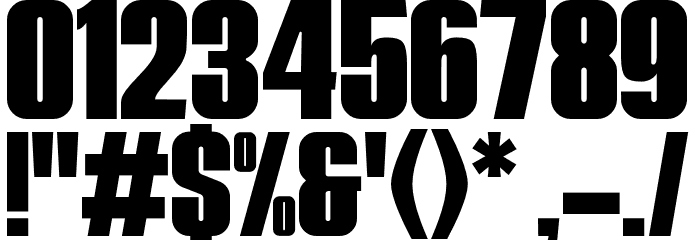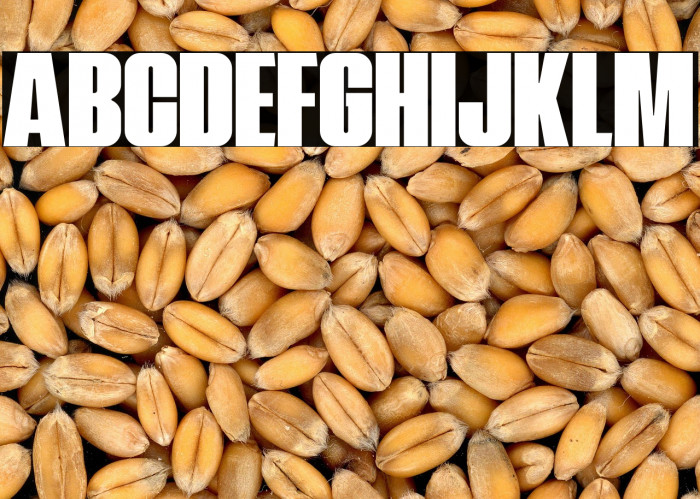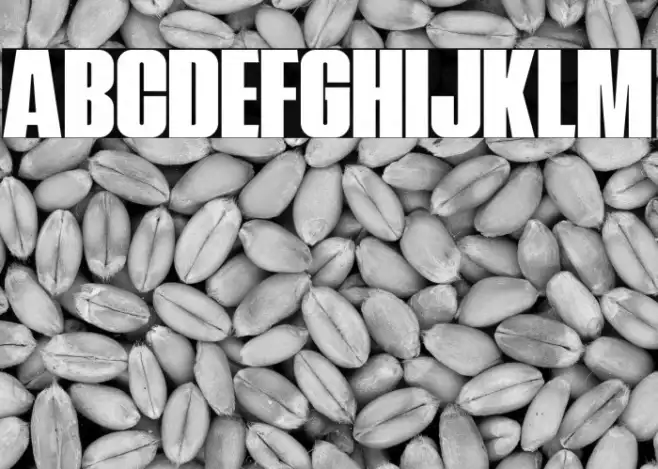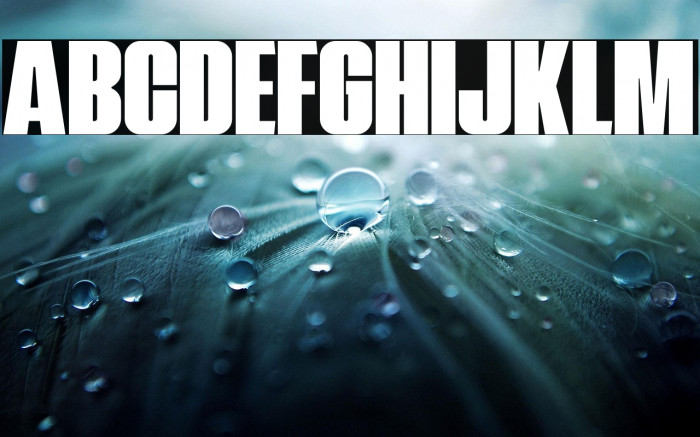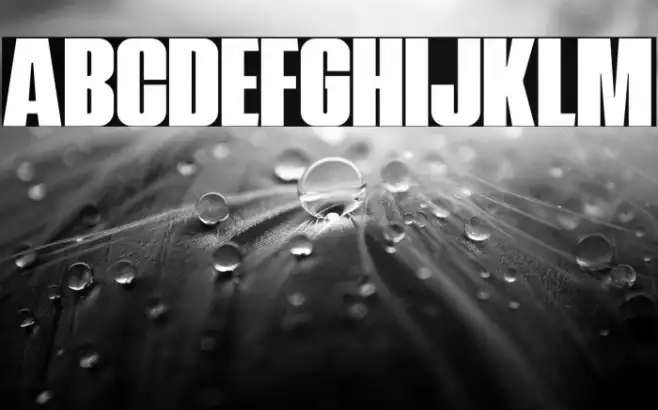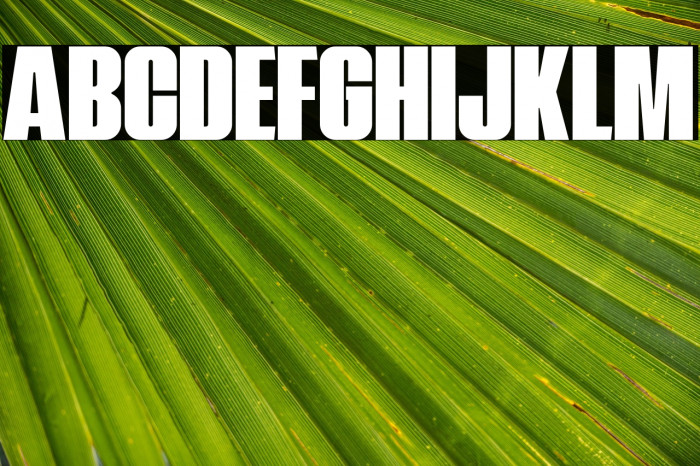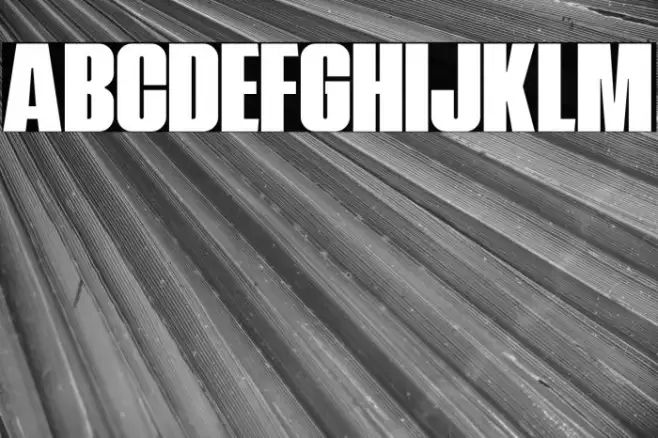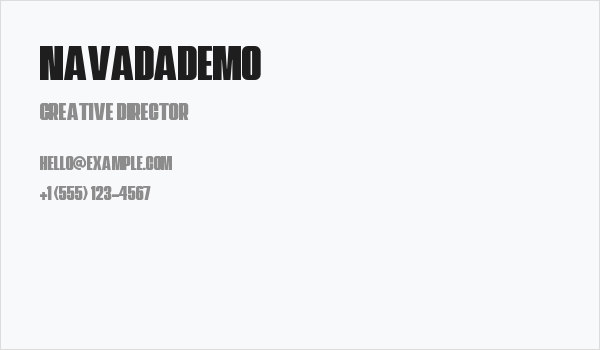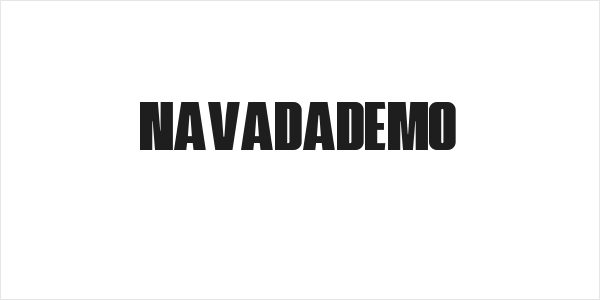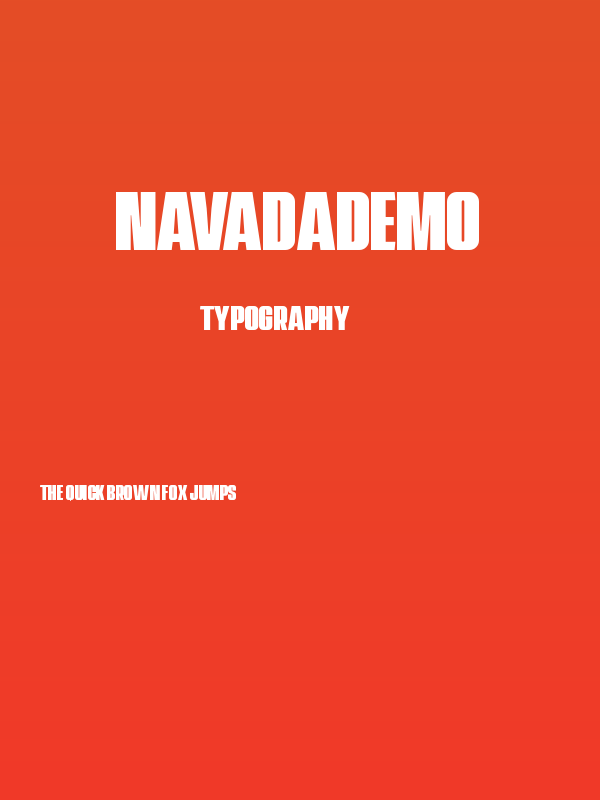
NavadaDemo Font
NavadaDemo Description
This font is a bold, impactful typeface characterized by its thick, blocky letters. It features a strong presence with its heavy weight and condensed width, making it ideal for grabbing attention. The uppercase letters are particularly striking, with a uniform height and width that create a cohesive look. The numbers and special characters maintain the same boldness, ensuring consistency across all elements. The font's design is modern and assertive, suitable for projects that require a strong visual statement.
| Proposed Projects | Ideal for headlines, posters, branding, and any design needing a bold statement. |